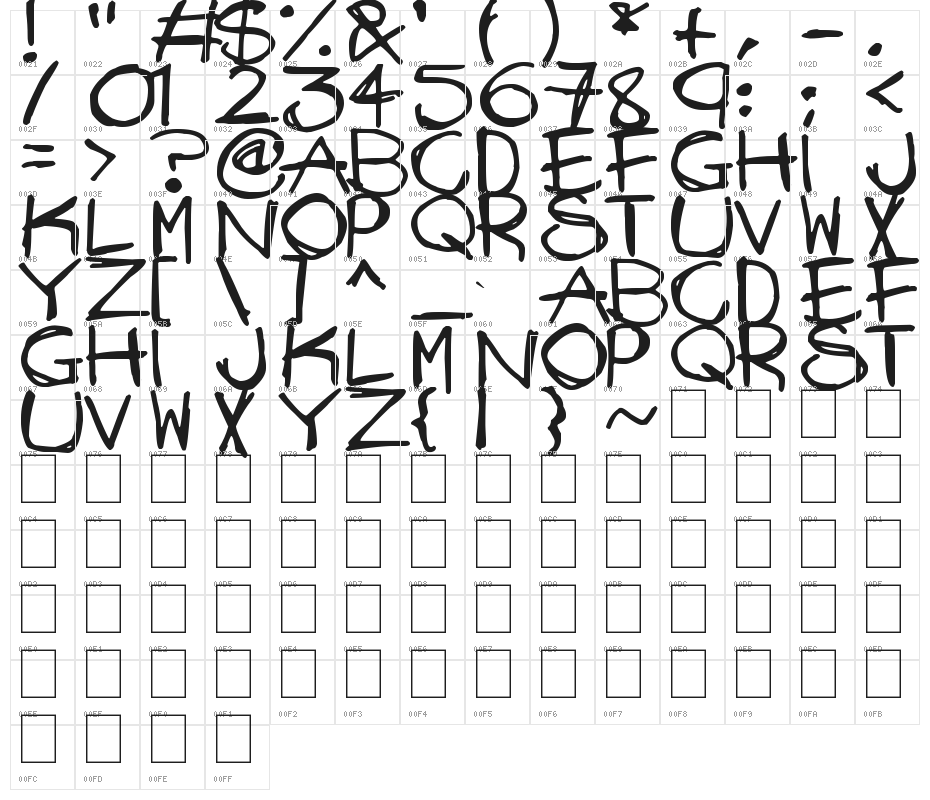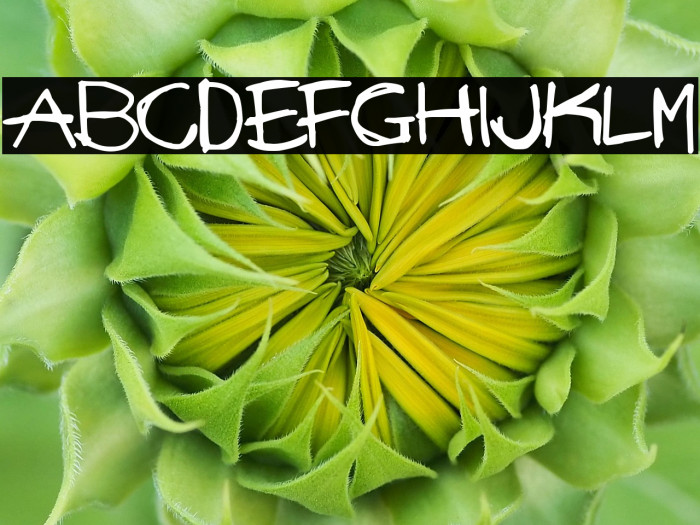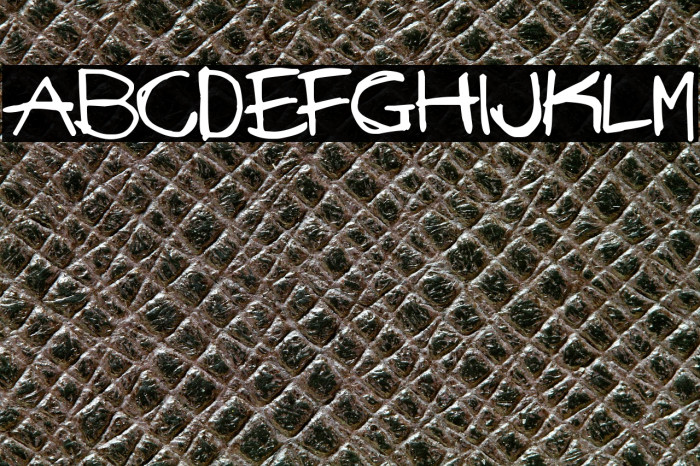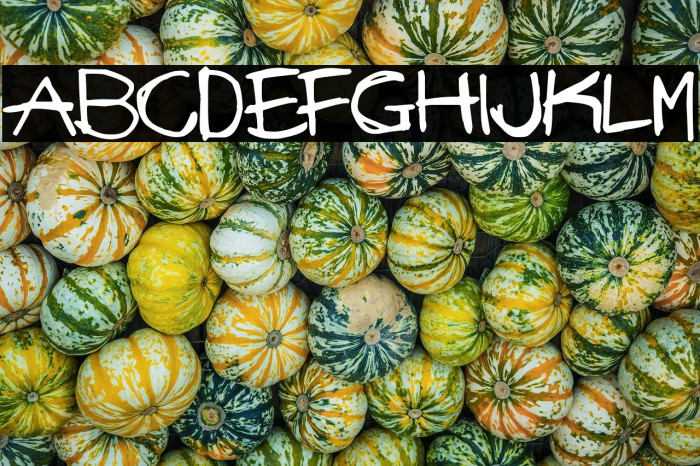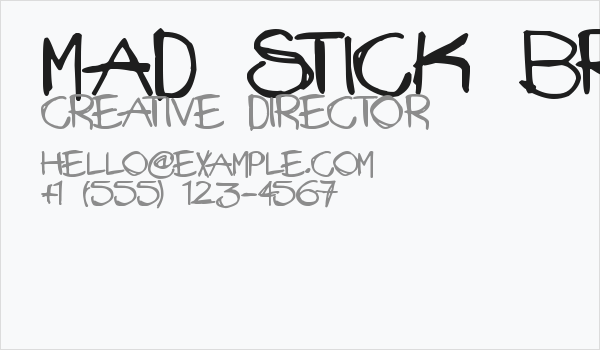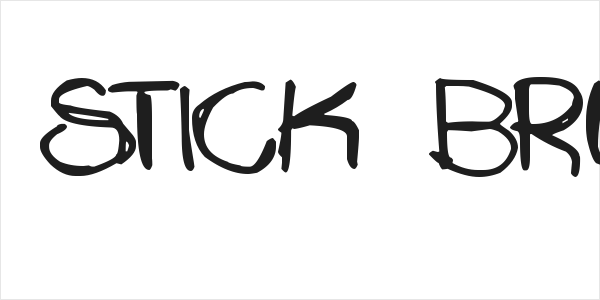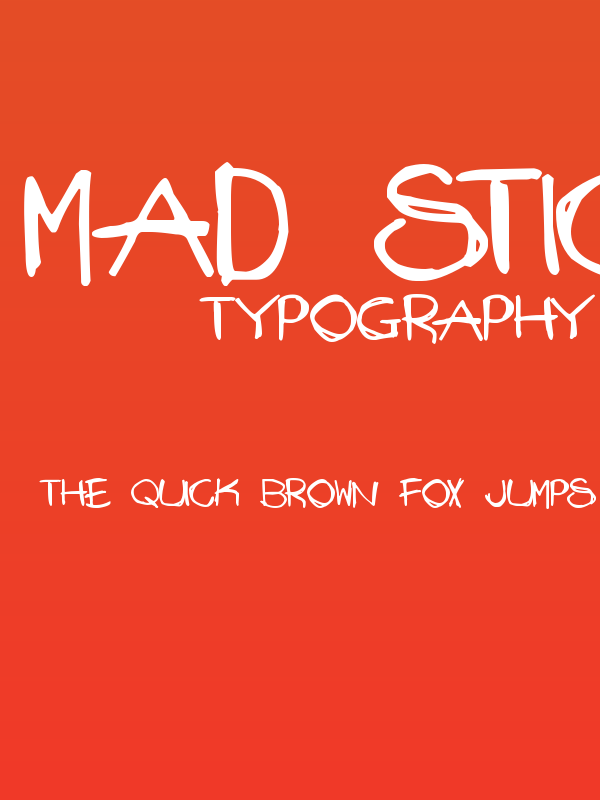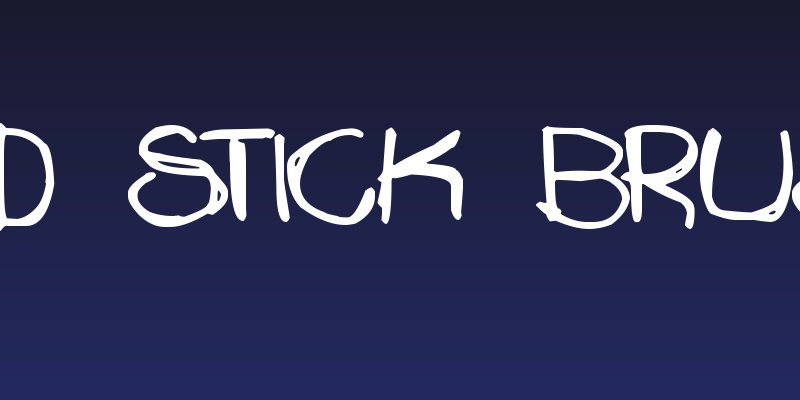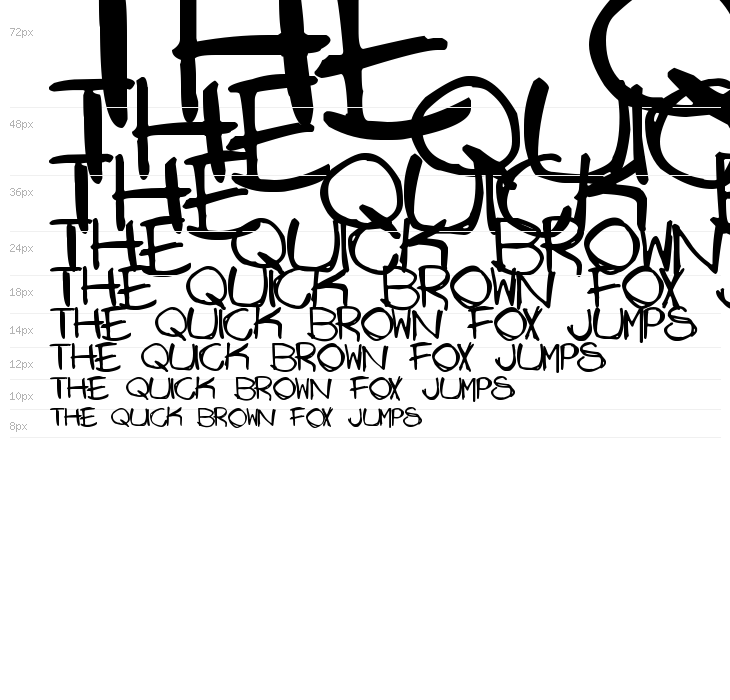
Mad Stick Brush Font
Mad Stick Brush Description
This font features a bold, energetic brush style that mimics the look of hand-painted lettering. The characters are dynamic and slightly irregular, giving them a lively and spontaneous feel. The uppercase and lowercase letters maintain a consistent style, with thick strokes and sharp angles that create a sense of movement. The numbers and special characters are equally expressive, making them suitable for attention-grabbing designs. The overall appearance is both artistic and edgy, ideal for projects that require a bold statement.
| Proposed Projects | Ideal for posters, album covers, graffiti art, and branding projects that require a bold, artistic touch. |